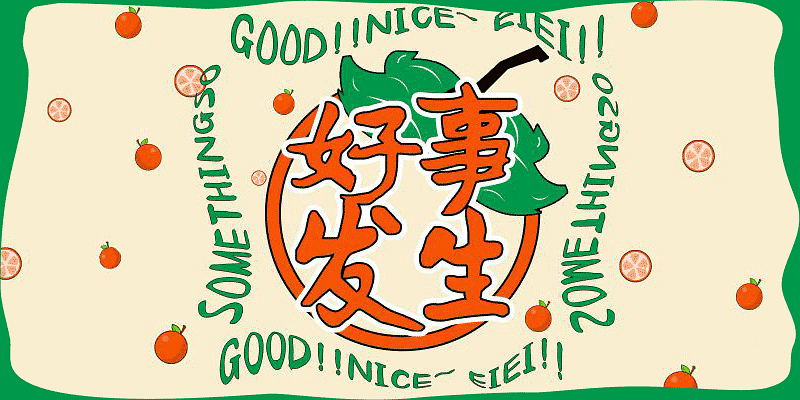
HelloFont ID Qian Fu Shou Shu Font is a captivating and unique typeface that captures the essence of traditional Chinese calligraphy with a dynamic, modern feel. Its expressive, flowing strokes give it an authentic, hand-drawn look, making it an excellent choice for a variety of projects that need a touch of artistic elegance and cultural richness. This font is perfect for branding for art studios, upscale restaurants, and luxury goods, as well as for creating distinctive posters, book covers, and product packaging that stand out with an Eastern aesthetic. The HelloFont ID Qian Fu Shou Shu Font Free Download allows you to test this beautiful and expressive font for your personal creative projects.
What makes HelloFont ID Qian Fu Shou Shu Font so exciting is its remarkable ability to convey a sense of genuine craftsmanship and artistic flow. Each character seems to be a work of art in itself, with subtle variations in stroke width and texture that add to its authentic, handwritten look. This unique quality makes it far more engaging than a standard font, giving your designs a memorable and personal touch. It is a powerful tool for visual storytelling, helping to evoke emotions and a sense of tradition without sacrificing modern appeal. Its distinct style ensures that any design using it will have a strong and unforgettable identity.
The HelloFont ID Qian Fu Shou Shu Font family is designed to offer a cohesive and versatile toolkit for your creative needs. It includes a variety of styles that maintain the same artistic integrity, such as HelloFont ID Qian Fu Shou Shu Regular and HelloFont ID Qian Fu Shou Shu Bold. This range allows you to create a dynamic typographic hierarchy, using different styles to add depth and emphasis to your designs. The consistent aesthetic across the family ensures that every element of your layout, from main titles to small details, is unified and professional.
This font is more than just a typeface; it's a design asset that can help you define your brand's personality and communicate your vision effectively. Its artistic and elegant nature makes it a valuable addition to any designer's toolkit.